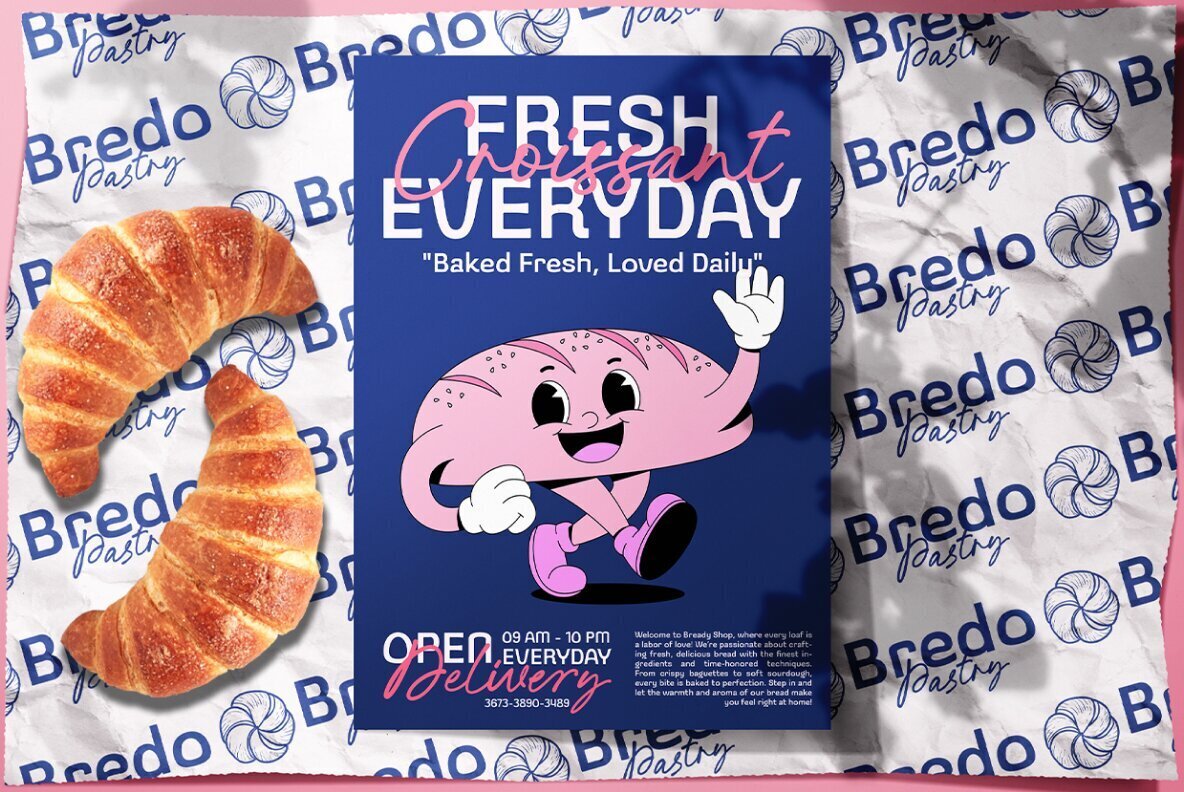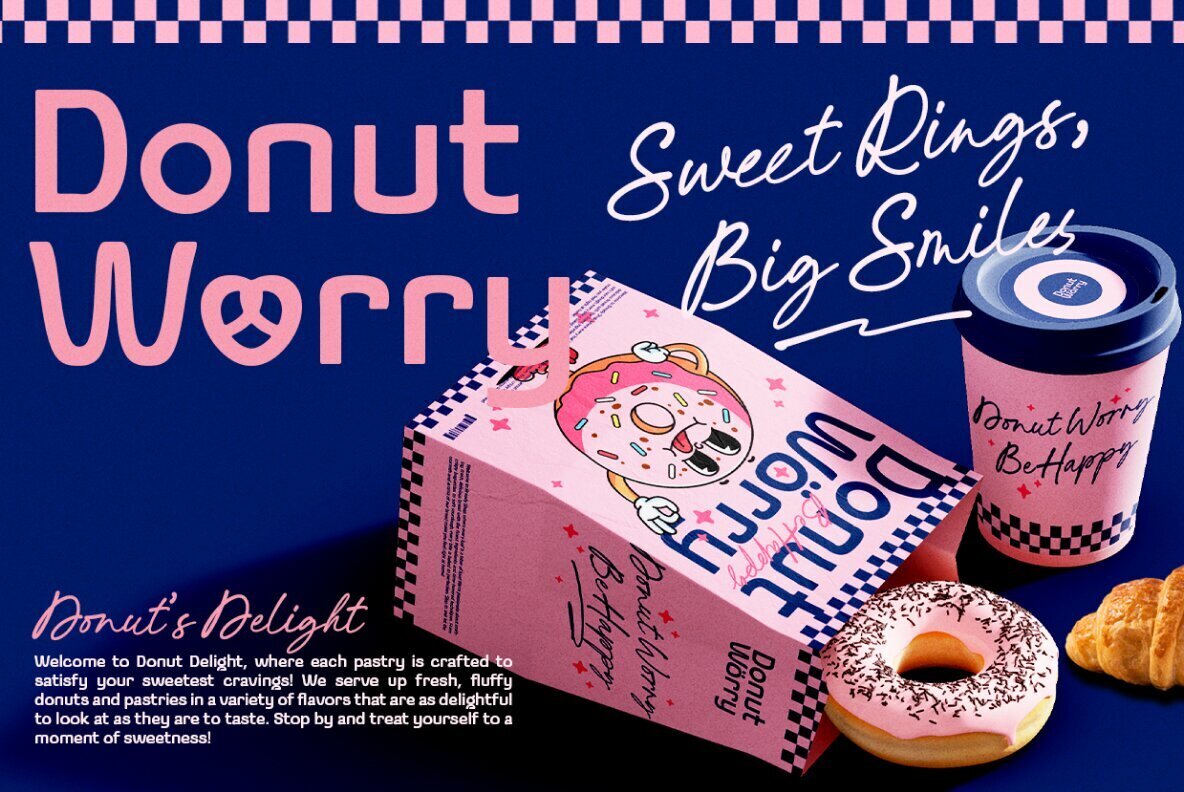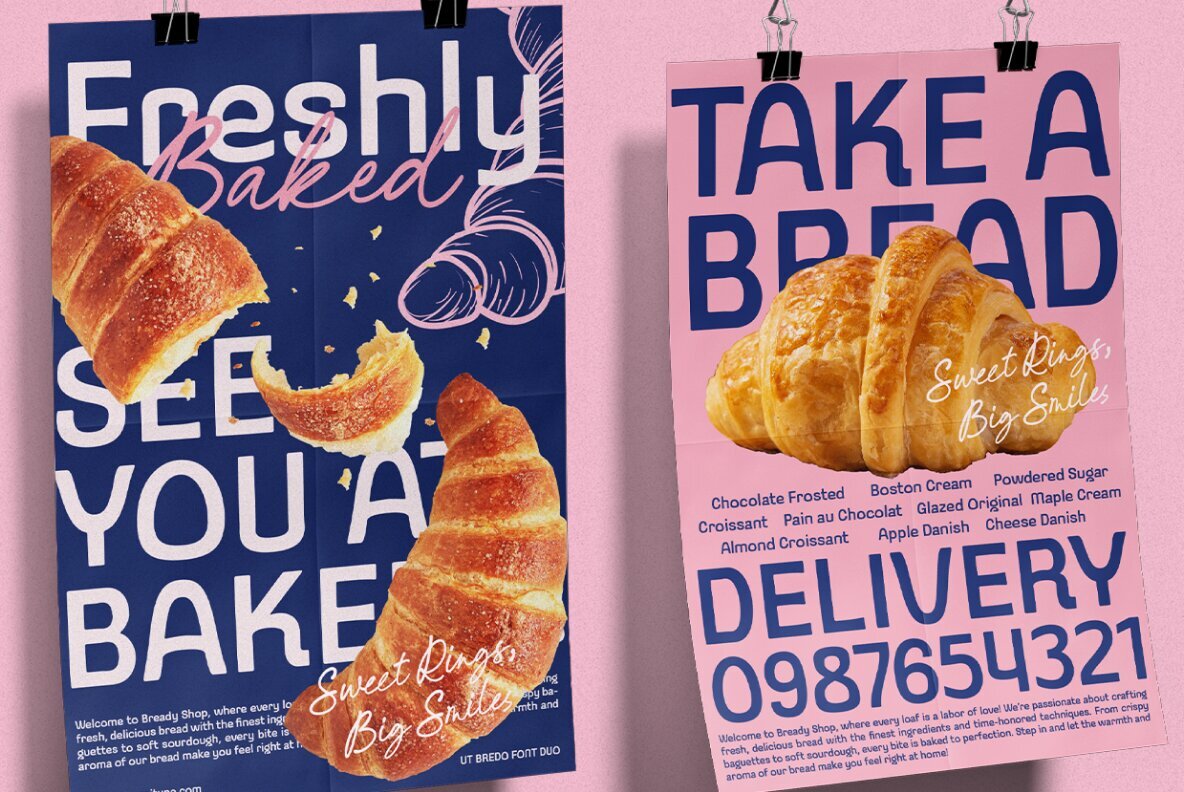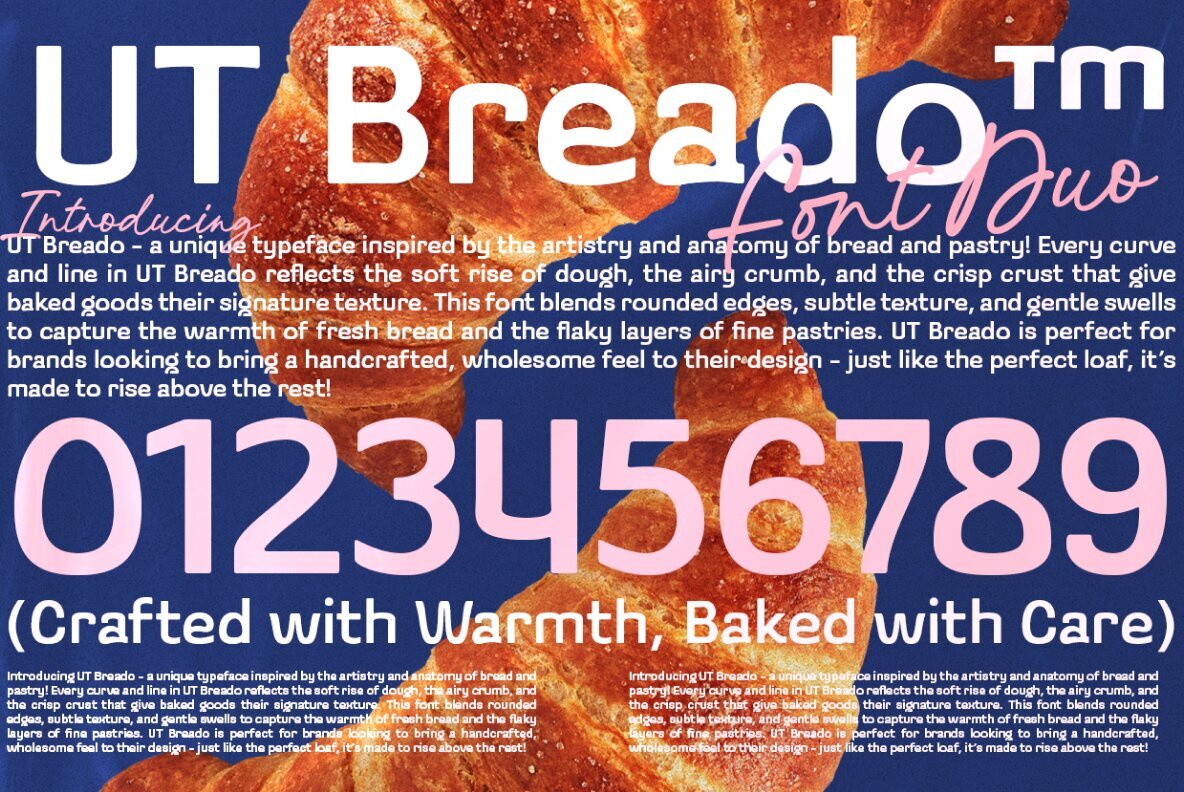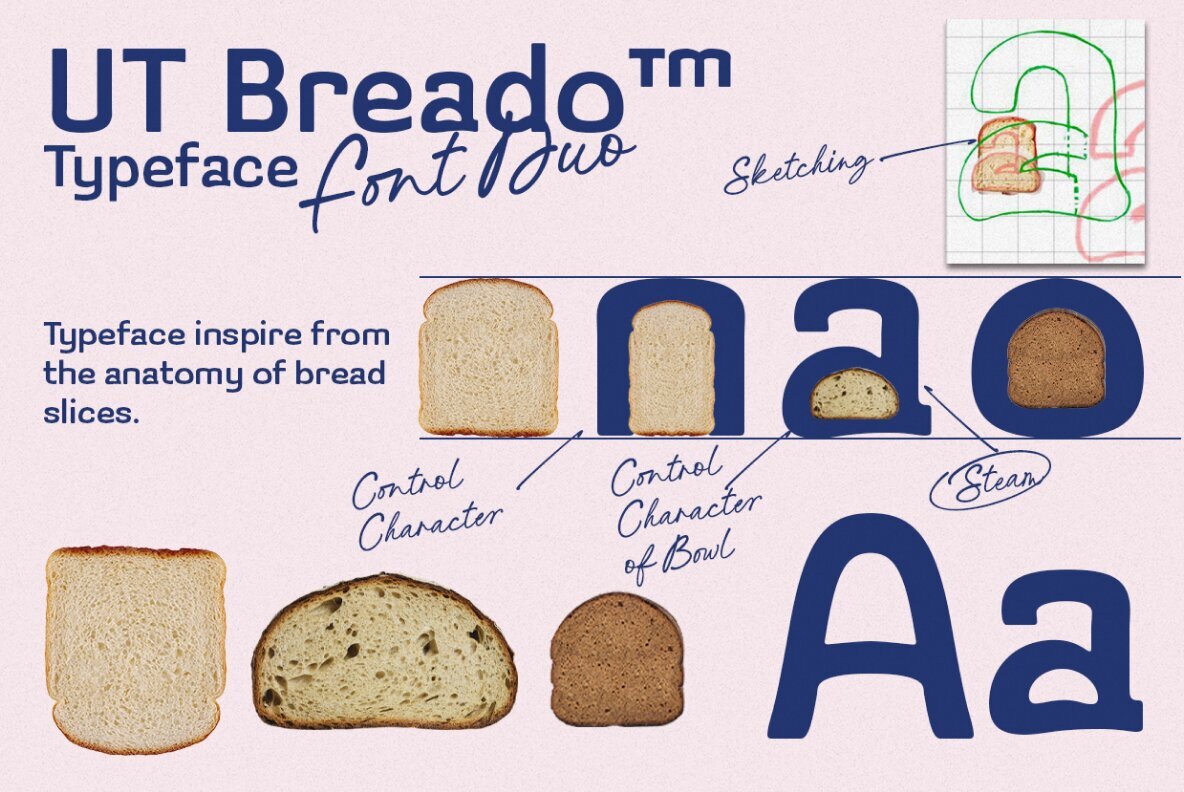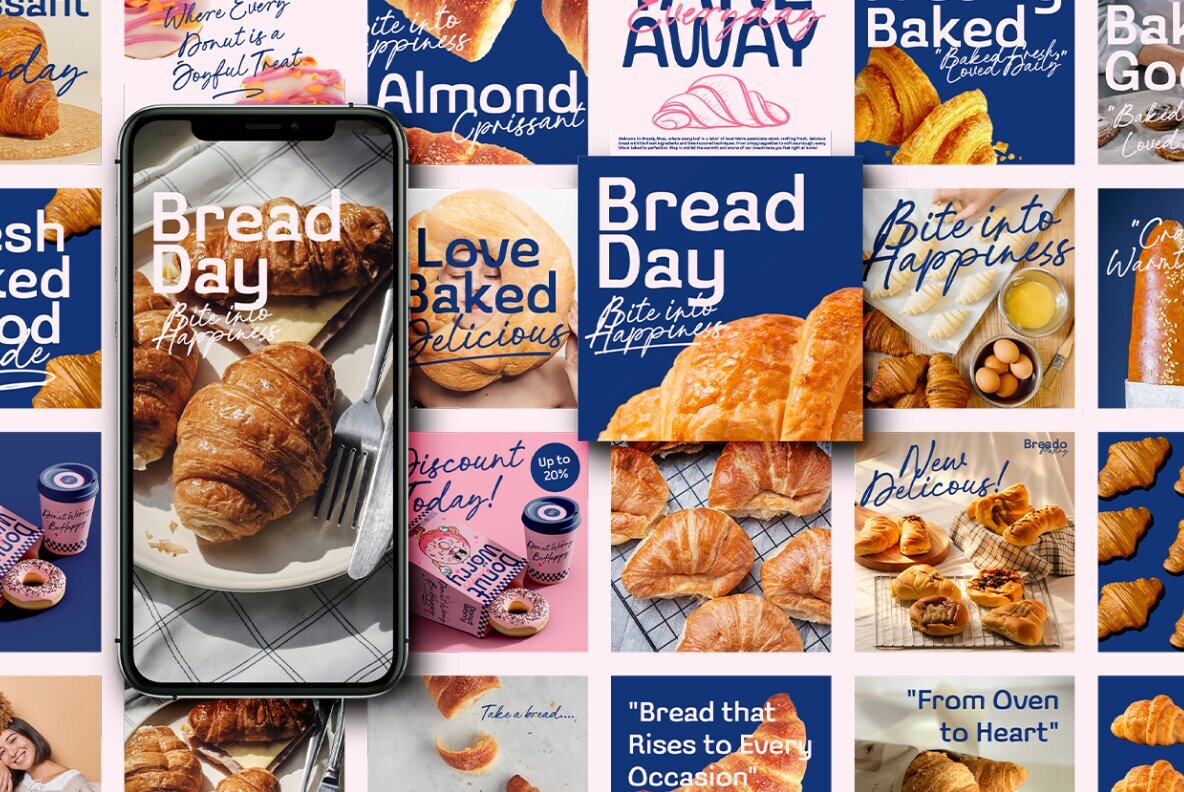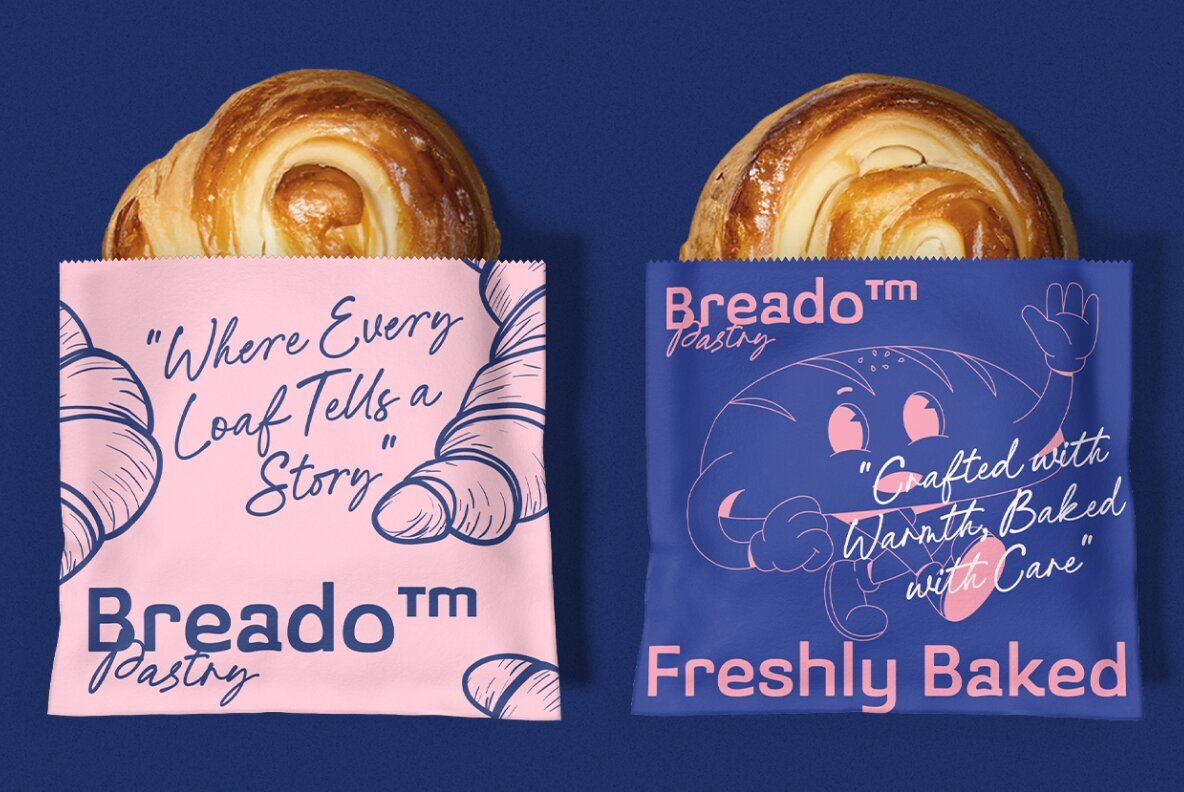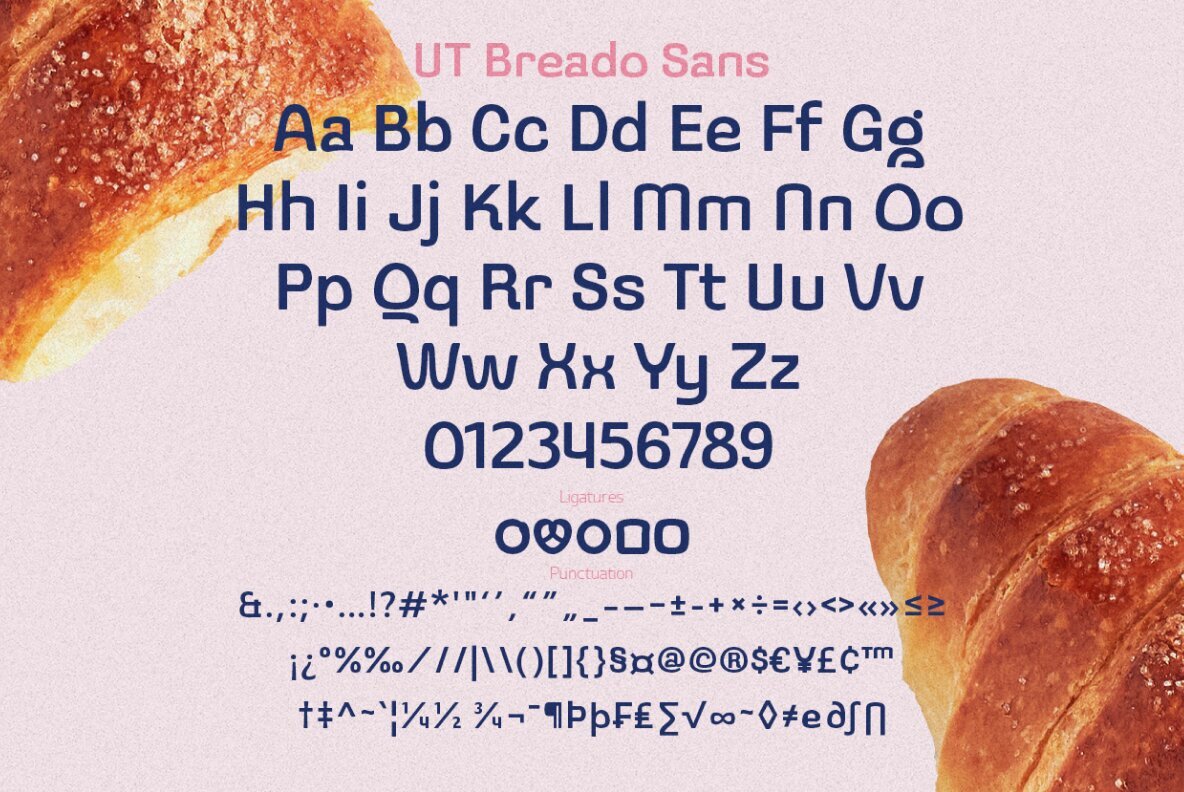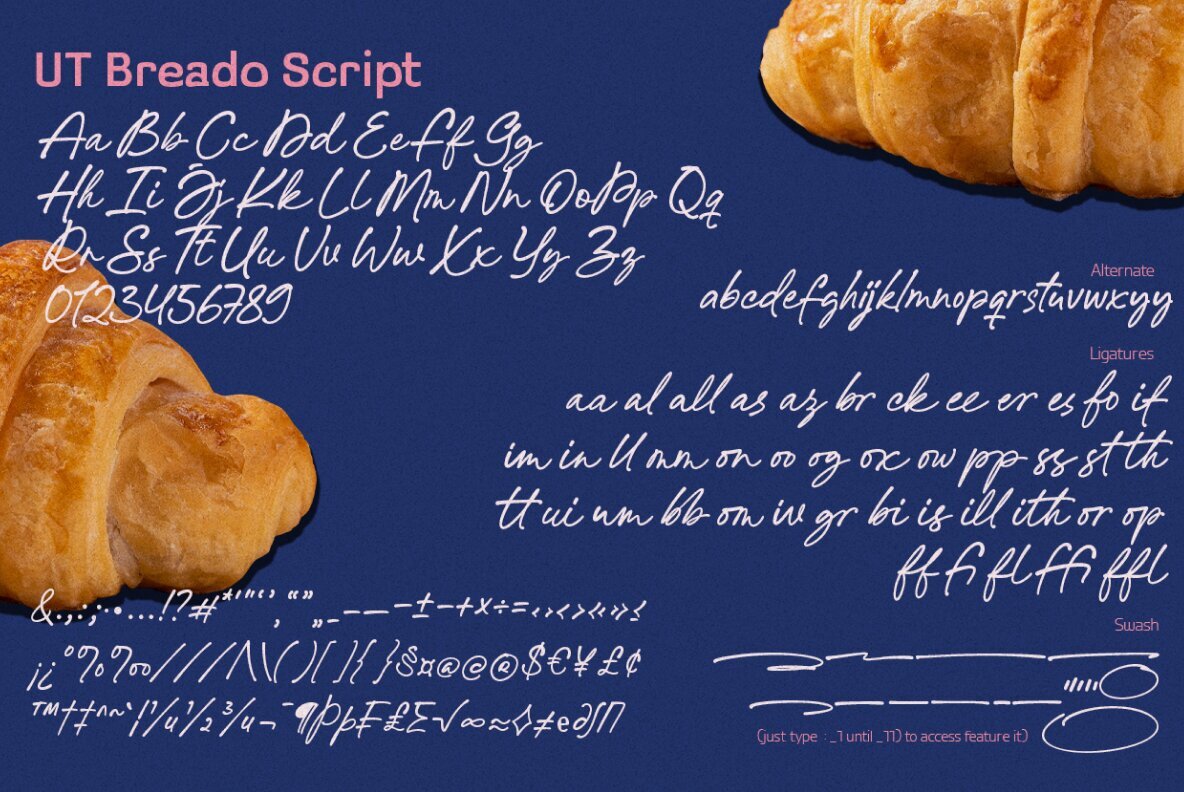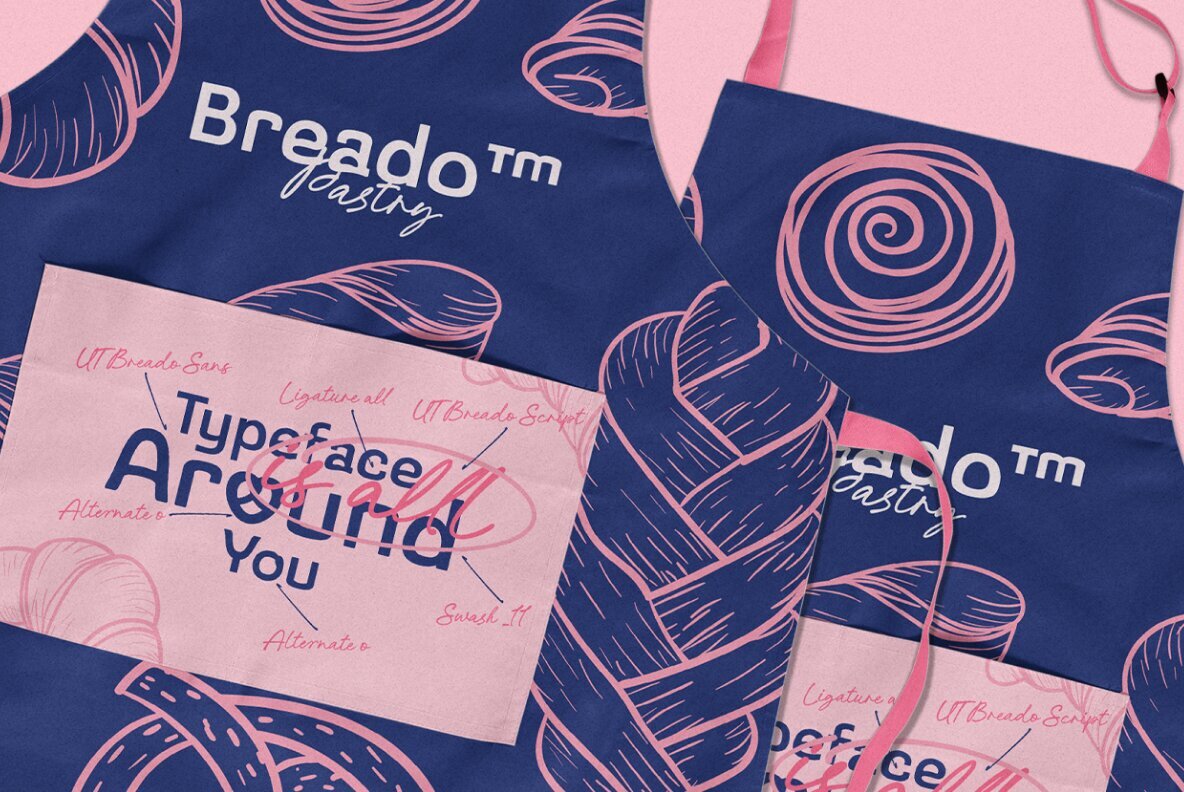
UT Breado Font
UT Breado Font Duo reimagines typography by infusing the essence of freshly baked bread with a playful design, perfect for innovative creators. This typeface merges warmth and craftsmanship with approachable elegance, making it ideal for captivating branding and storytelling. With smooth, rounded character forms evoking the soft texture of bread, UT Breado is crafted for brands that value authenticity and charm. This typeface is especially suitable for cozy cafes, food packaging, and community campaigns, connecting with audiences who appreciate warmth in design.
Key features include organic forms inspired by bread slices, offering two complementary styles suitable for versatile design projects. Its incorporation of ligatures and stylistic alternates adds personalized creativity to your work. Multilingual support covers a wide Latin character range, meeting global design needs. Designed for seamless adaptation across mediums, UT Breado thrives in print and digital spaces. Engaging applications range from food and beverage branding to packaging design, editorial content, and event invitations. With over 400 glyphs, including special features like stylistic sets and swashes, UT Breado Font Duo elevates your design with a comforting, nostalgic touch.